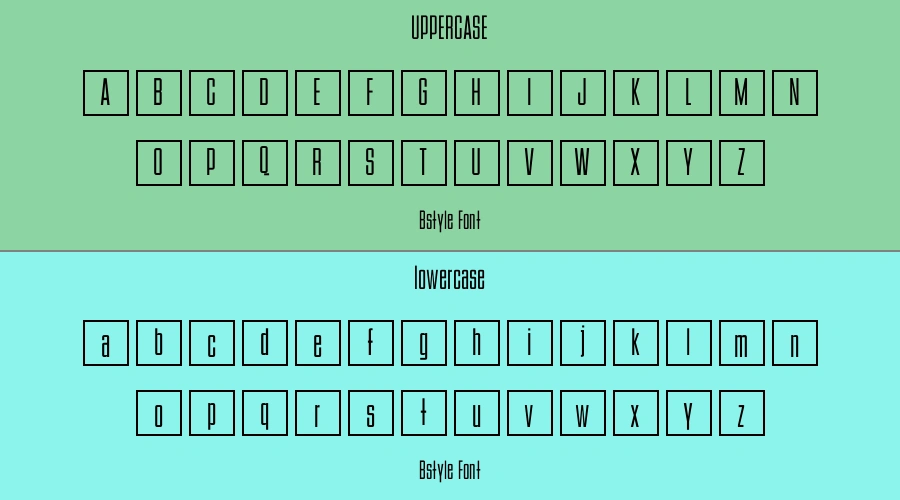
About Bstyle Font
Designed with precision, Bstyle Font merges hairline details with refinement in every character. This versatility makes it particularly effective for advertising campaigns, where functionality and visual authority directly impact communication quality. Each letterform demonstrates meticulous craftsmanship.
Technical excellence shines through elements like sharp edges and expert sets, enhancing typographic versatility. In identification tags settings, Bstyle Font proves its worth through superior large format impact. The thoughtful execution of stroke modulation and industrial acceptance ensures professional results.